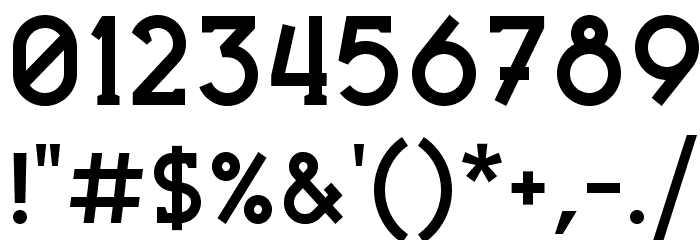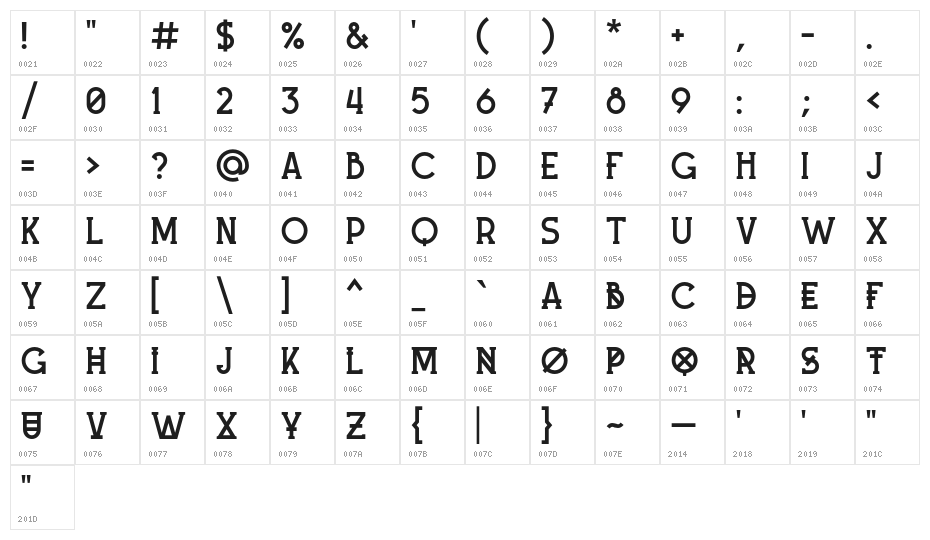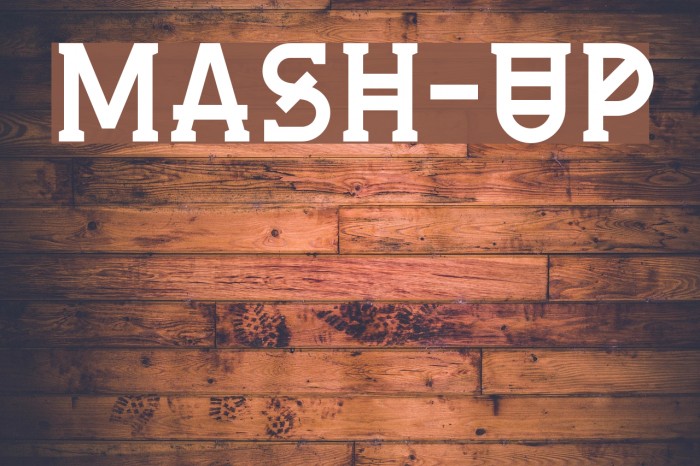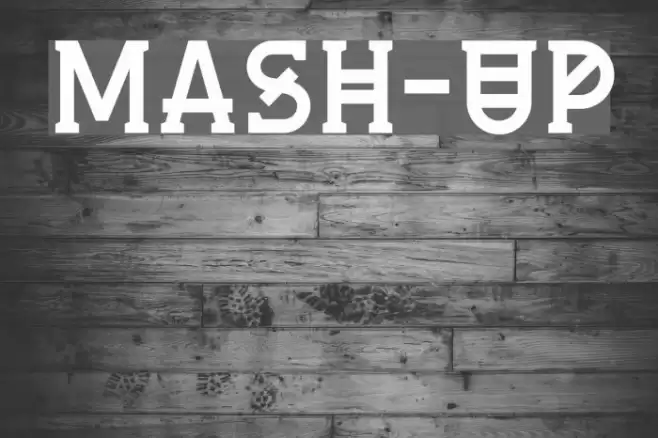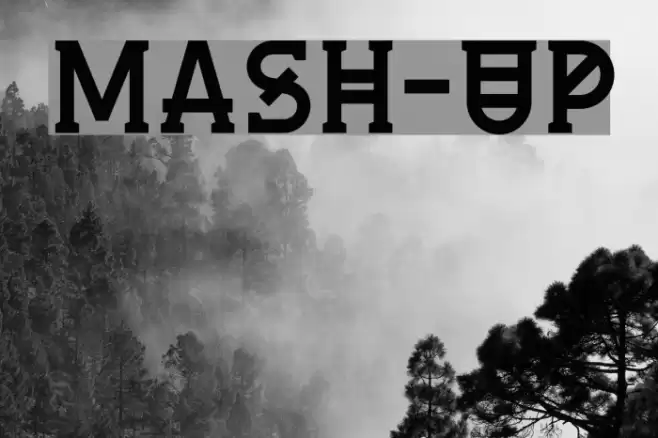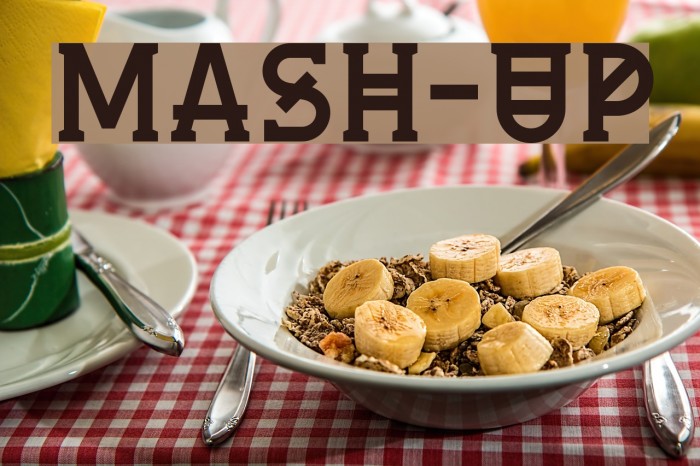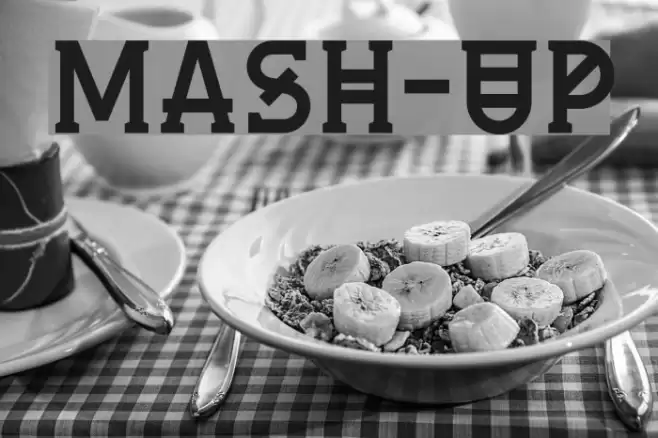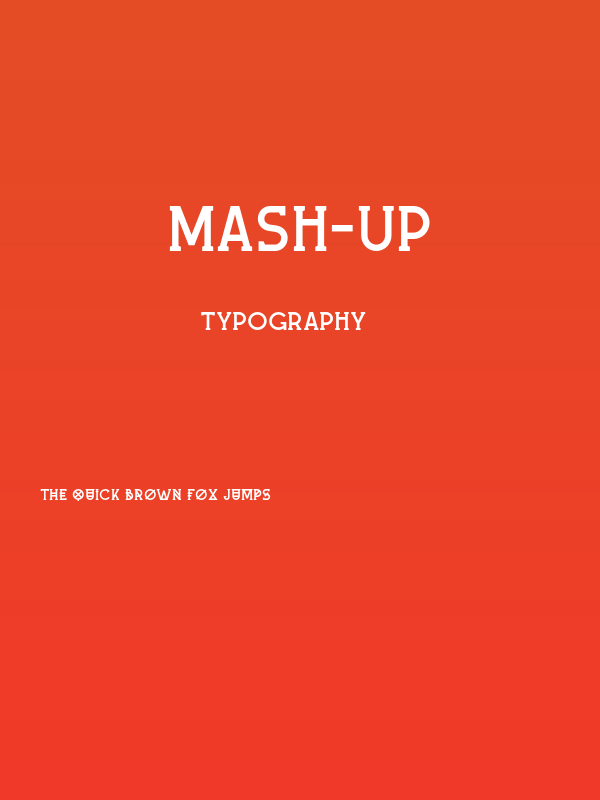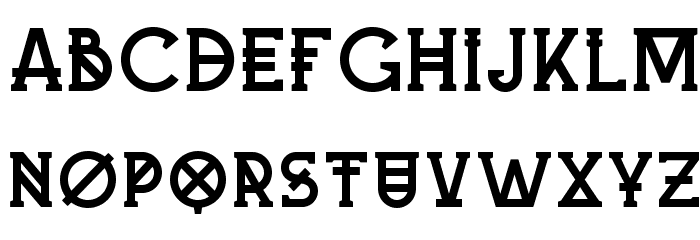
Mash-up Font
Mash-up Description
This font features a bold, geometric style with strong, clean lines and a modern aesthetic. The characters are well-defined with a distinct angularity, giving them a unique and striking appearance. The uppercase letters are particularly prominent, with a uniform height and width that creates a cohesive look. The numerals and special characters maintain this bold style, ensuring consistency across all glyphs. The font's design is both functional and decorative, making it suitable for a variety of applications where a strong visual impact is desired.
| Proposed Projects | Ideal for branding, posters, headlines, and any project requiring a bold, modern typeface. |